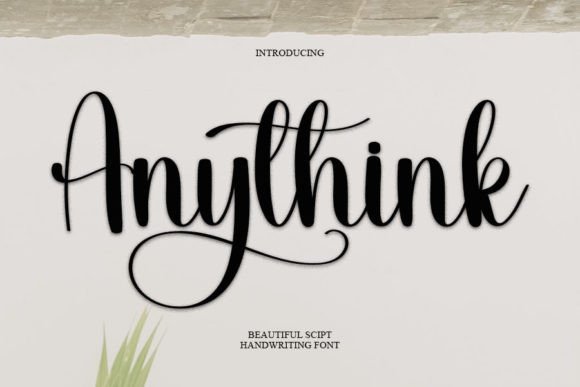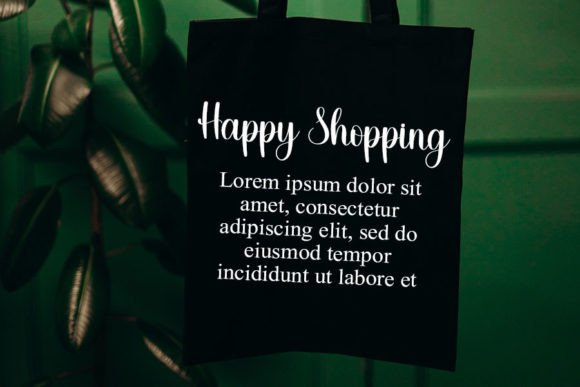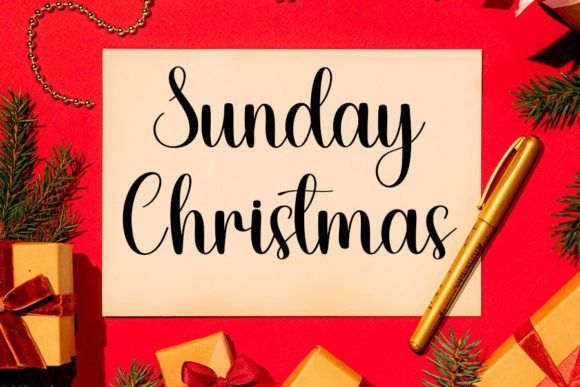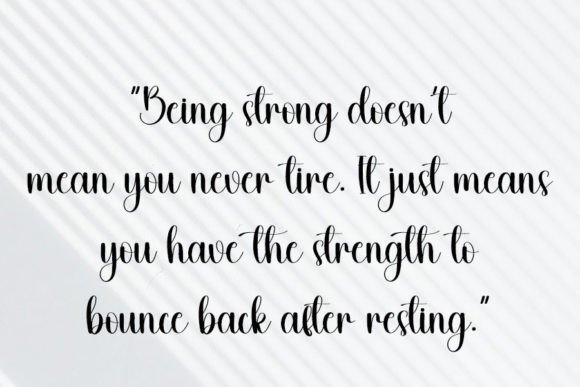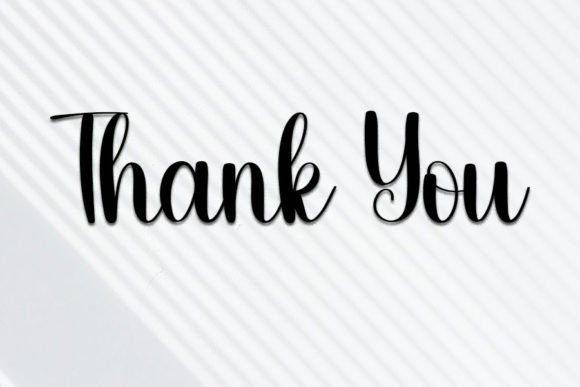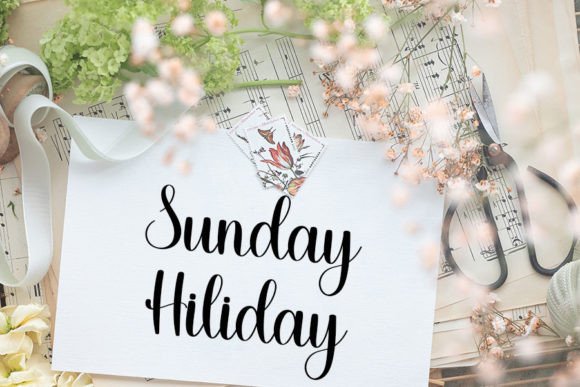
About Anythink Font
Anythink Font is a cheerful and inviting handwritten typeface designed to bring energy and creativity to your work. With its smooth curves and balanced structure, this font gives your designs a relaxed, handmade vibe without losing legibility.
Whether you’re creating for digital platforms or print, Anythink Font adapts beautifully. Its warm, handcrafted appearance is especially suitable for crafting projects, branding materials, greeting cards, and social media posts. Even better, its simplicity ensures that it works well on a wide range of backgrounds and layouts.
What Makes Anythink Font Unique?
Here’s why Anythink Font stands out from the crowd:
Approachable design – Its rounded letters and clean structure make it visually pleasing and easy to read.
Flexible use – You can use it on everything from professional marketing to casual DIY gifts.
Natural charm – Each character flows naturally, giving the font an authentic, handwritten feel.
Optimized for readability – Despite its playful style, it remains highly legible at various sizes.
By combining style with clarity, AnythinkFont becomes a go-to choice for designers who need both personality and performance.
Perfect For Multiple Applications
Whether you’re creating a logo or making personalized event invitations, AnythinkFont is a strong design ally. It works well for:
Greeting cards and celebration signage
Printable crafts and DIY projects
Quote graphics and inspirational posts
Social media branding and highlights
Educational materials and digital worksheets
Children’s books and product packaging
This versatile font adds a friendly, upbeat mood to all your creative ideas, helping them stand out while staying fun and functional.